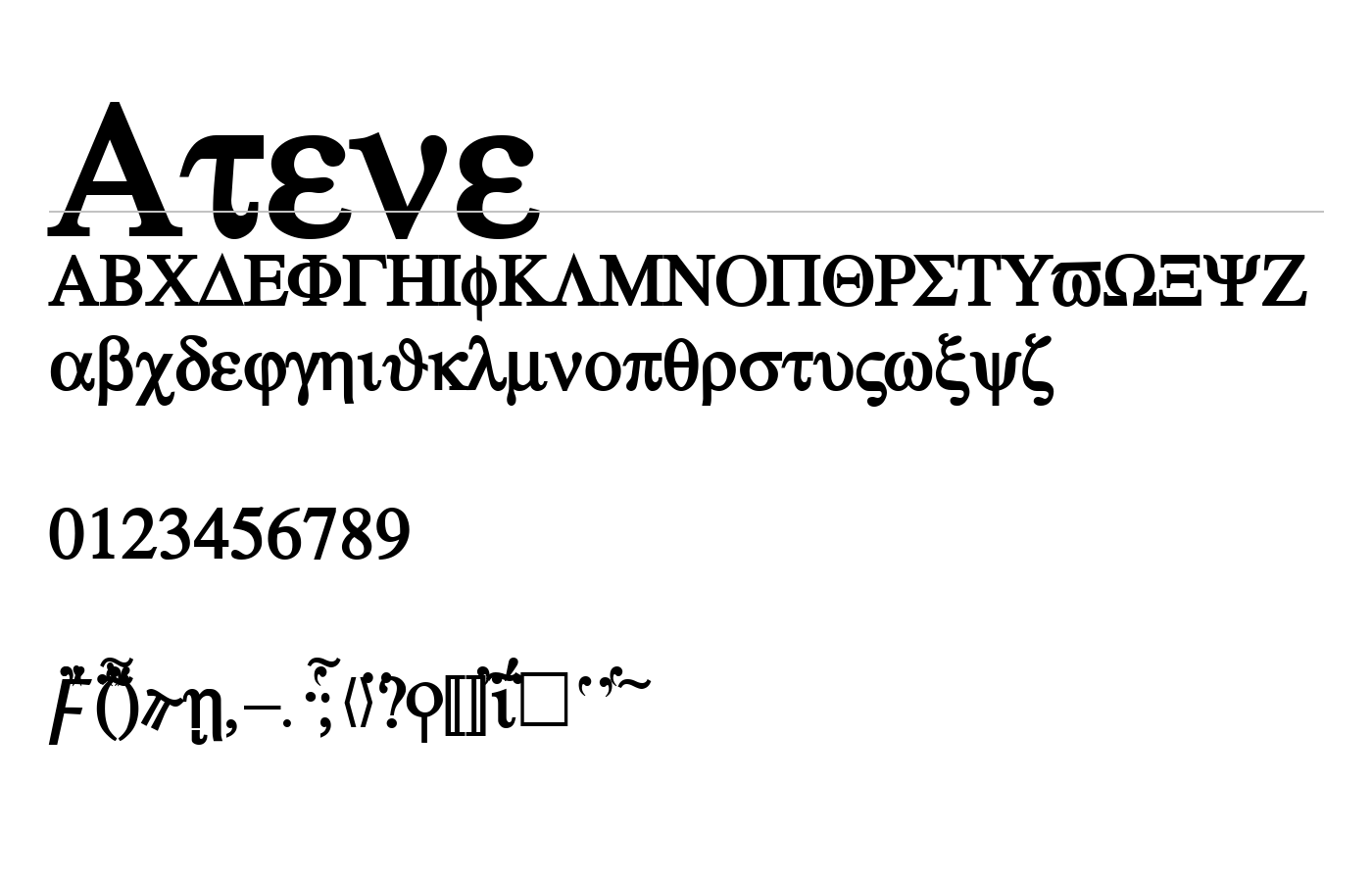
Atene is a serif font featuring a classic and elegant style with sharp, clean lines and thin, bracketed serifs that convey a refined yet authoritative look. It balances high contrast stroke weights with moderate x-height, making it ideal for sophisticated editorial work, branding, and formal contexts where clarity and tradition are valued. Its distinct letterforms, including unique character shapes, lend it a timeless yet approachable personality perfect for fashion, luxury, or academic use.
Atene Font
About Atene Font